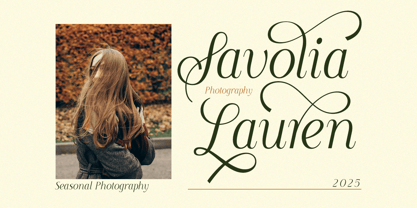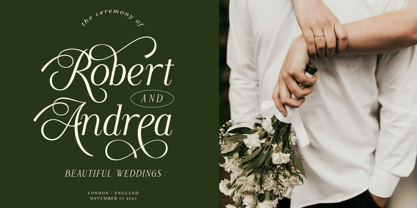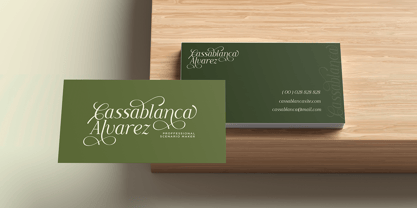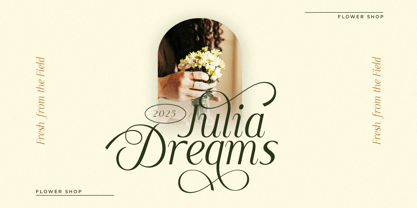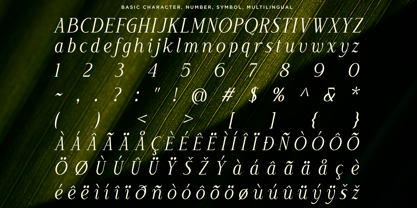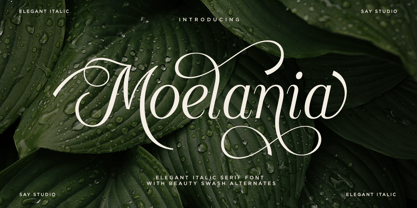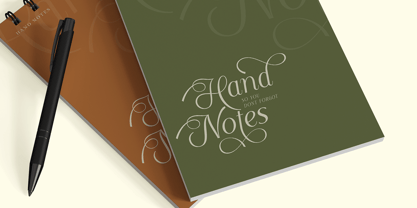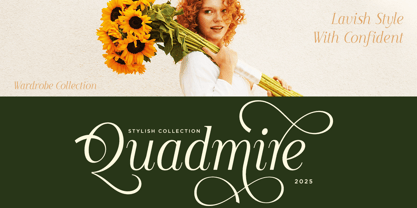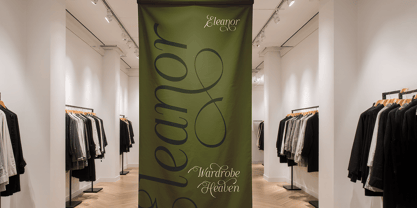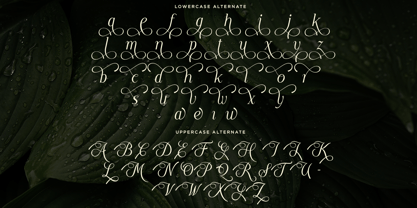
Moelania
Introducing Moelania, an elegant italic serif font that captures the beauty of classic typography with graceful curves and luxurious swash alternates. Designed to create a refined and sophisticated impression, this typeface is perfect for projects that demand timeless elegance and premium visual appeal.
With its flowing italic forms and beautifully crafted alternate characters, Moelania is ideal for luxury branding, wedding invitations, fashion editorials, beauty products, floral boutiques, cosmetic packaging, photography, logos, magazines, and premium social media content. Every letter is carefully designed to produce harmonious compositions while maintaining excellent readability.
Whether you're building a memorable brand identity or creating elegant invitations and editorial layouts, Moelania delivers a sophisticated aesthetic that feels both modern and timeless. Its decorative swashes allow you to create stunning headlines, logos, and custom typography with ease.
Features :
• Uppercase & Lowercase
• Numerals & Punctuation
• Beautiful Swash Alternates
• Stylistic Alternates
• Multilingual Support